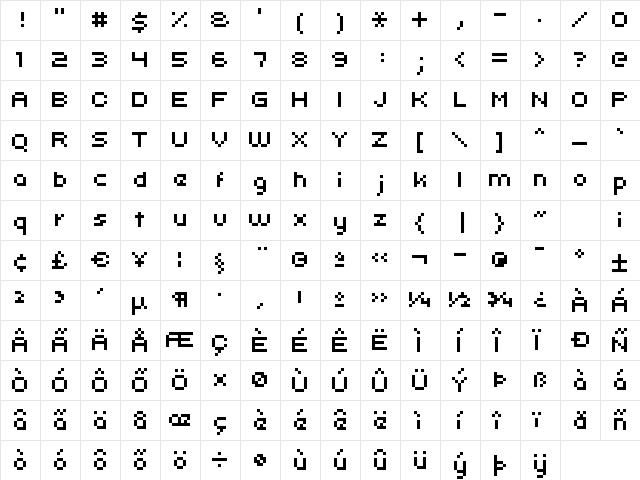
uni 05_53 Regular
| Designer | Craig Kroeger |
Design Context for uni 05_53 Typeface
uni 05_53 is a composed and adaptable typeface that performs quietly and consistently across a wide range of design contexts.